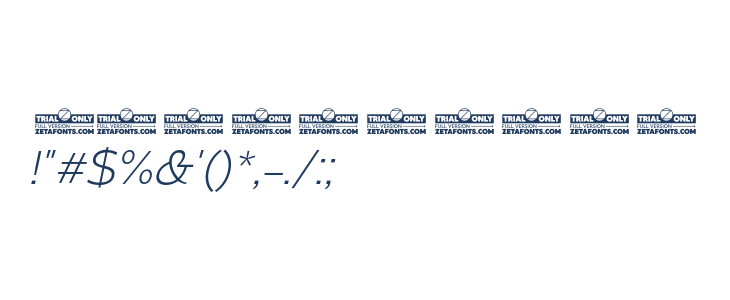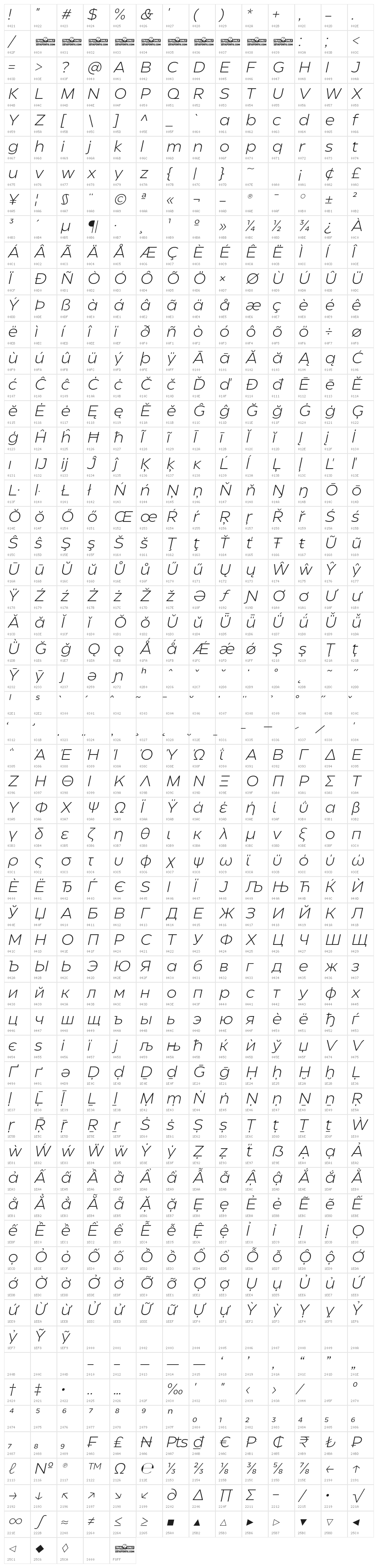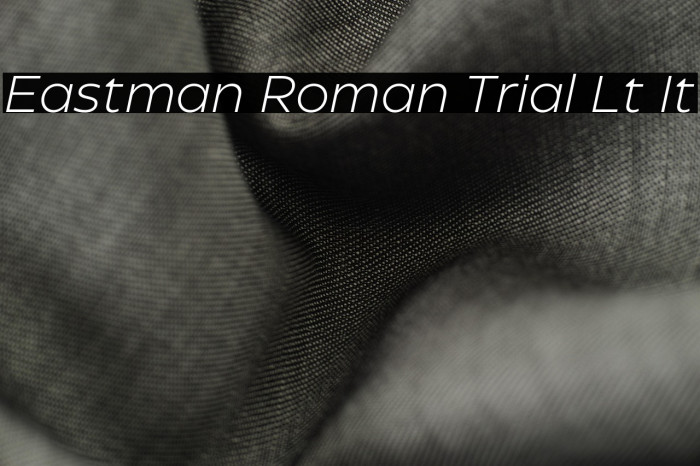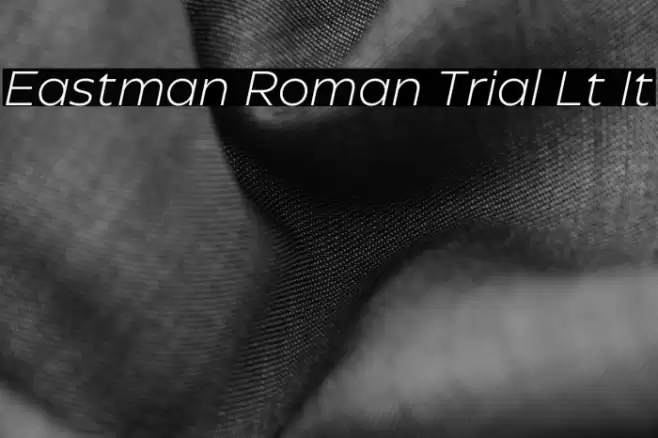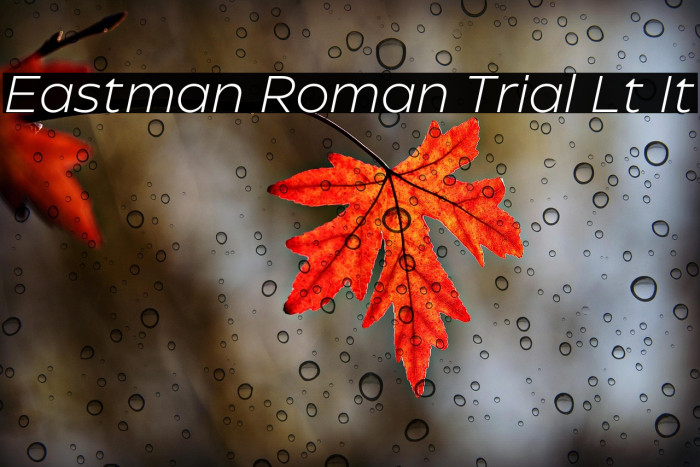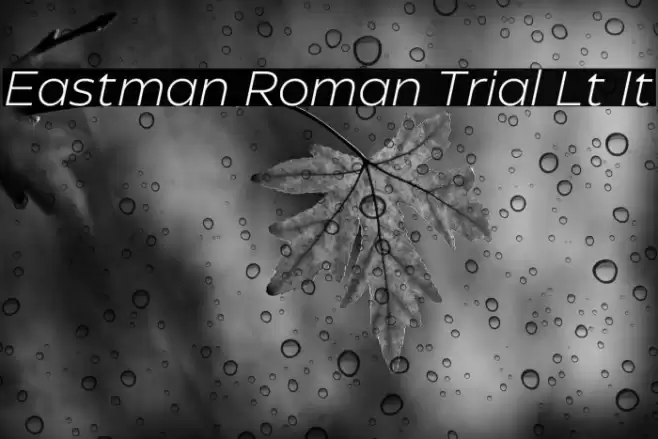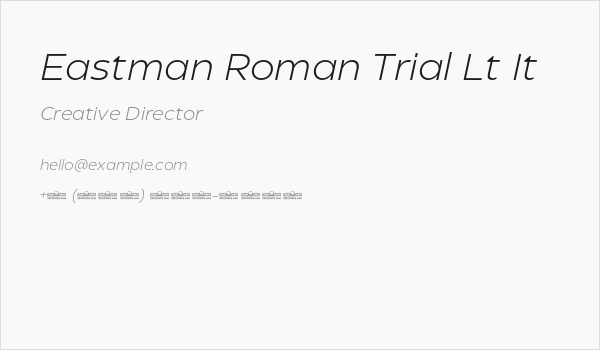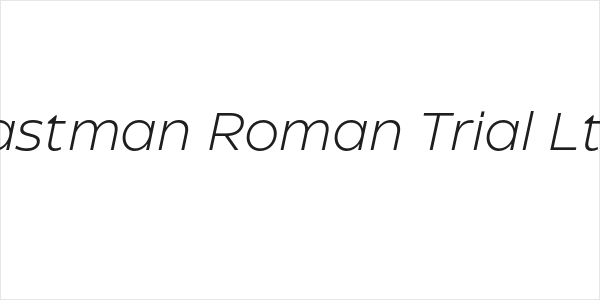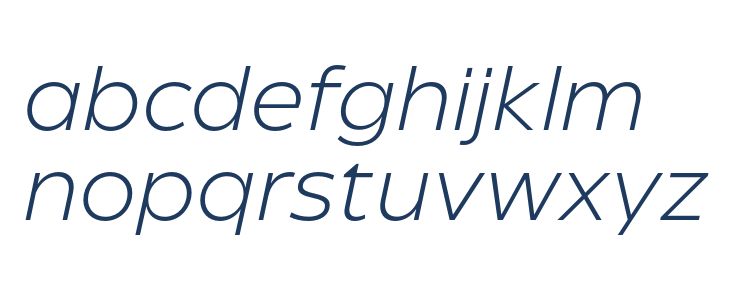
Eastman Roman Trial Lt It Font
Eastman Roman Trial Lt It Description
This font features a sleek and modern design with clean lines and a slightly italicized style. The characters are well-proportioned, offering a harmonious balance between curves and straight edges. The uppercase letters are bold and commanding, while the lowercase letters maintain a smooth and flowing appearance. The numerals are clear and easy to read, making them suitable for various applications. Special characters are included, providing versatility for different design needs. The overall aesthetic is contemporary, making it ideal for projects that require a touch of elegance and sophistication.